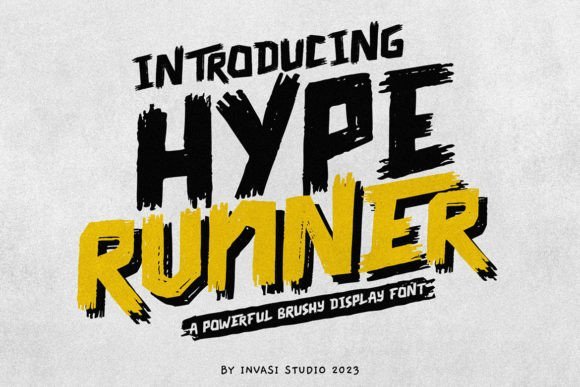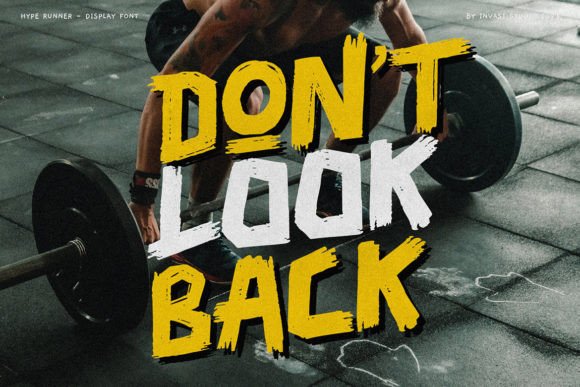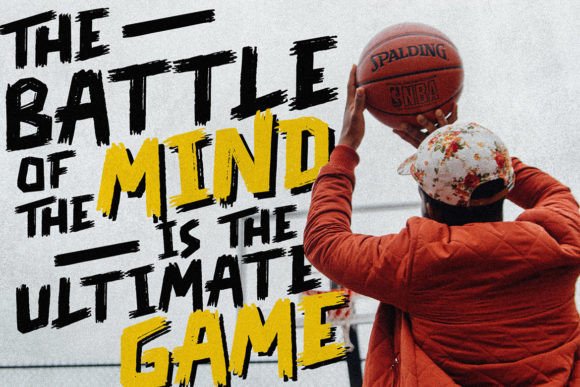
Get Ready to Unleash Your Inner Champion with the Perfect Font
As a designer, there’s nothing quite like the thrill of creating something from scratch. It’s that moment of pure imagination, when a concept starts to take shape, and you know you’ve got something special. For me, it’s always been about capturing the energy and excitement of the moment, and that’s exactly what Hype Runner – Brushy Display Font is all about.
With its bold, edgy style, this font is the perfect companion for any design project that needs to make a statement. Whether you’re creating designs for sports, events, or simply want to add some extra oomph to your work, Hype Runner – Brushy Display Font is the ultimate tool in your toolkit. Its unique features, including alternate glyphs and ligatures, make it a valuable asset for any designer looking to create eye-catching, one-of-a-kind designs.
Hype Runner – Brushy Display Font Key Features
- Unique Characteristics: Hype Runner features a distinctive brushy, hand-drawn style with subtle texture and imperfections, giving it a unique, high-energy feel.
Hype Runner – Brushy Display Font Review
Overall, I’m really impressed with the Hype Runner – Brushy Display Font. It’s a beautiful, high-energy font that’s perfect for any project that needs a bold statement. ✨ The font’s brushy, handwritten feel gives it a unique, eye-catching quality that’s sure to grab attention.
One of the things I love about Hype Runner is its versatility. It’s great for headings, titles, and even short blocks of text. The font’s bold, expressive lines make it perfect for creating a sense of energy and excitement. ✨
- Unique, brushy design that’s perfect for making a statement
- Highly versatile and suitable for a range of applications
- Expressive lines add energy and excitement to text
- May be difficult to read at small font sizes due to the brushy design
- Not suitable for large blocks of text due to its energetic, attention-grabbing nature
- May not be ideal for formal or professional projects
- ⚠️ Some users may find the font’s unconventional design off-putting
Overall, I’d highly recommend the Hype Runner – Brushy Display Font for any project that needs a bold, eye-catching statement. While it may have some limitations, its unique design and versatility make it a great choice for creatives looking to make a statement.
Tips for Getting the Most Out of Hype Runner – Brushy Display Font
Use Hype Runner – Brushy Display Font for eye-catching headings and titles.
Pair it with bold, bright colors to make your design stand out.
Experiment with different font sizes and styles to add visual interest.
Use Hype Runner – Brushy Display Font for:
Music festival and concert posters.
Sporting event promotions.
Music and art inspired designs.